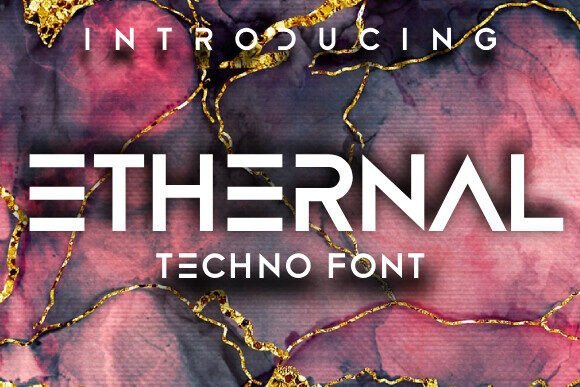
The Future of Design is Now: Discover Ethernal Font
As a designer, have you ever been stuck on a project, searching for that one font that captures the essence of your vision? The frustration is real, but what if I told you that the perfect font is out there, waiting to revolutionize your designs? For me, that moment came when I was working on a sci-fi poster, and I needed a font that would transport my audience to a futuristic world.
That’s when I stumbled upon Ethernal Font – a bold, futuristic techno font that brings a cutting-edge digital aesthetic to your designs. With its sharp geometric edges and modern style, it’s the perfect choice for sci-fi posters, tech branding, esports logos, and digital media projects that need a sleek and innovative touch. Whether you’re a seasoned designer or just starting out, Ethernal Font is a valuable addition to your toolkit.
Eternal Font Key Features
- Unique Characteristics: Eternal Font features a unique blend of modern and classic elements, with intricate details and subtle nuances that set it apart from other fonts.
- Font Styles: Eternal Font is available in several styles, including Regular, Italic, Bold, and Bold Italic, providing users with flexibility and options for various design applications.
- Scalability: The font is designed to be highly scalable, ensuring that it remains legible and visually appealing even at very small or very large sizes.
Eternal Font Review
I recently had the chance to work with the Eternal Font, and I must say it’s a decent addition to any designer’s toolkit. ✨ One of the things that stands out is its versatility – it’s a clean, modern sans-serif font that works well in both digital and print applications. The font’s simplicity makes it easy to pair with other fonts and it’s also highly legible at various sizes.
However, there are some limitations to keep in mind. ⚠️ The font’s lack of bold weights is noticeable, especially when trying to create emphasis. Additionally, the font’s italics can sometimes look a bit too slanted, which may not be ideal for certain designs. Another issue I encountered was the font’s limited language support, which may be a concern for designers working with non-English projects.
Overall, I think the Eternal Font is a solid choice for designers looking for a clean, modern sans-serif font. While it may not be perfect, its versatility and legibility make it a worthwhile addition to any toolkit.
- Modern sans-serif design
- Highly legible at various sizes
- Easy to pair with other fonts
- Decent for digital and print applications
- Limited language support
- Lack of bold weights
- Italics may appear too slanted
To get the most out of Eternal Font, consider the following tips:
- Use the font in combination with other elegant fonts for a sophisticated look.
- Use the font in headings and titles to create a clear hierarchy of information.
Eternal Font is ideal for:
- Luxury brand logos and packaging
- High-end business cards and letterheads
Alternatives to Ethernal Font